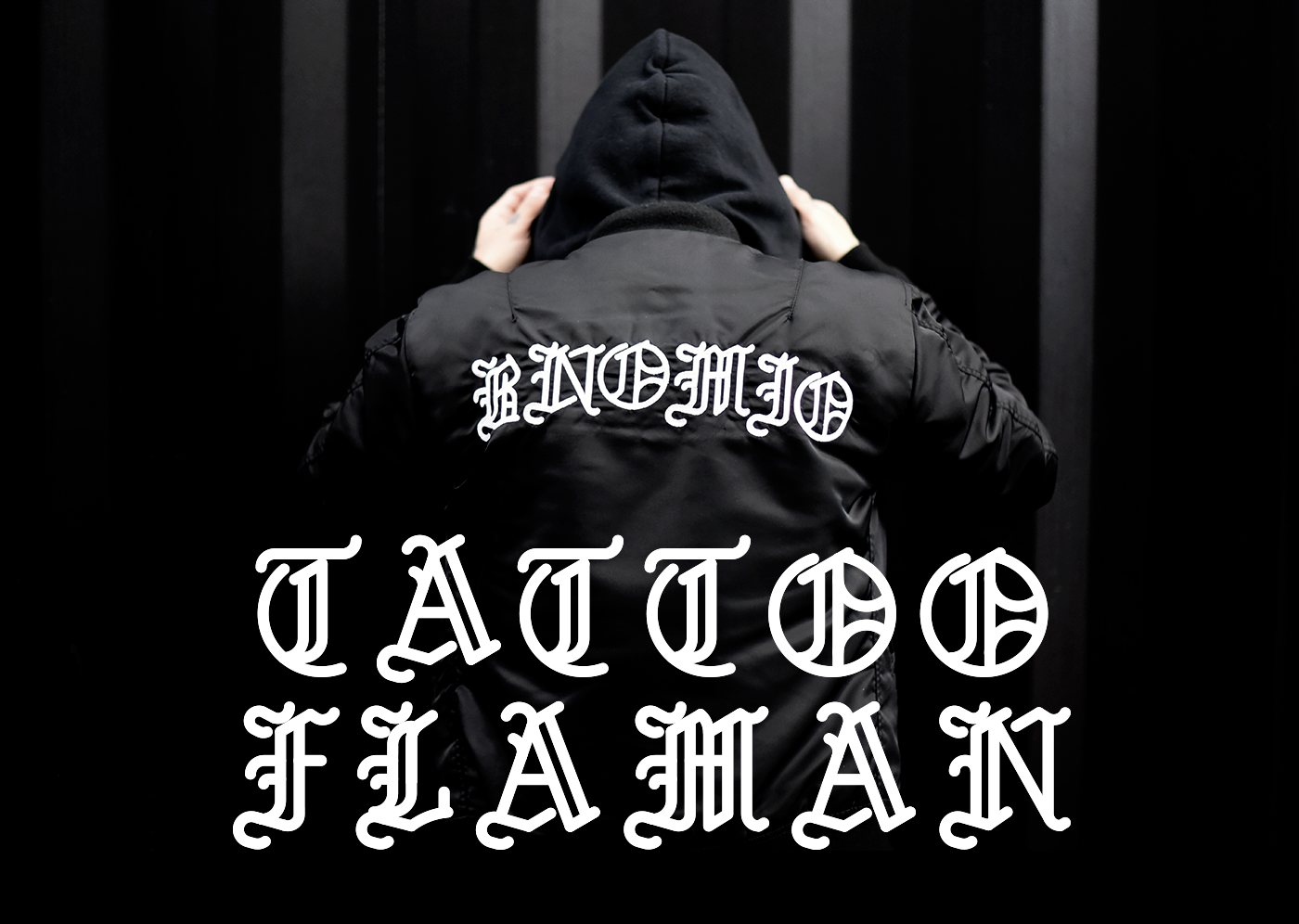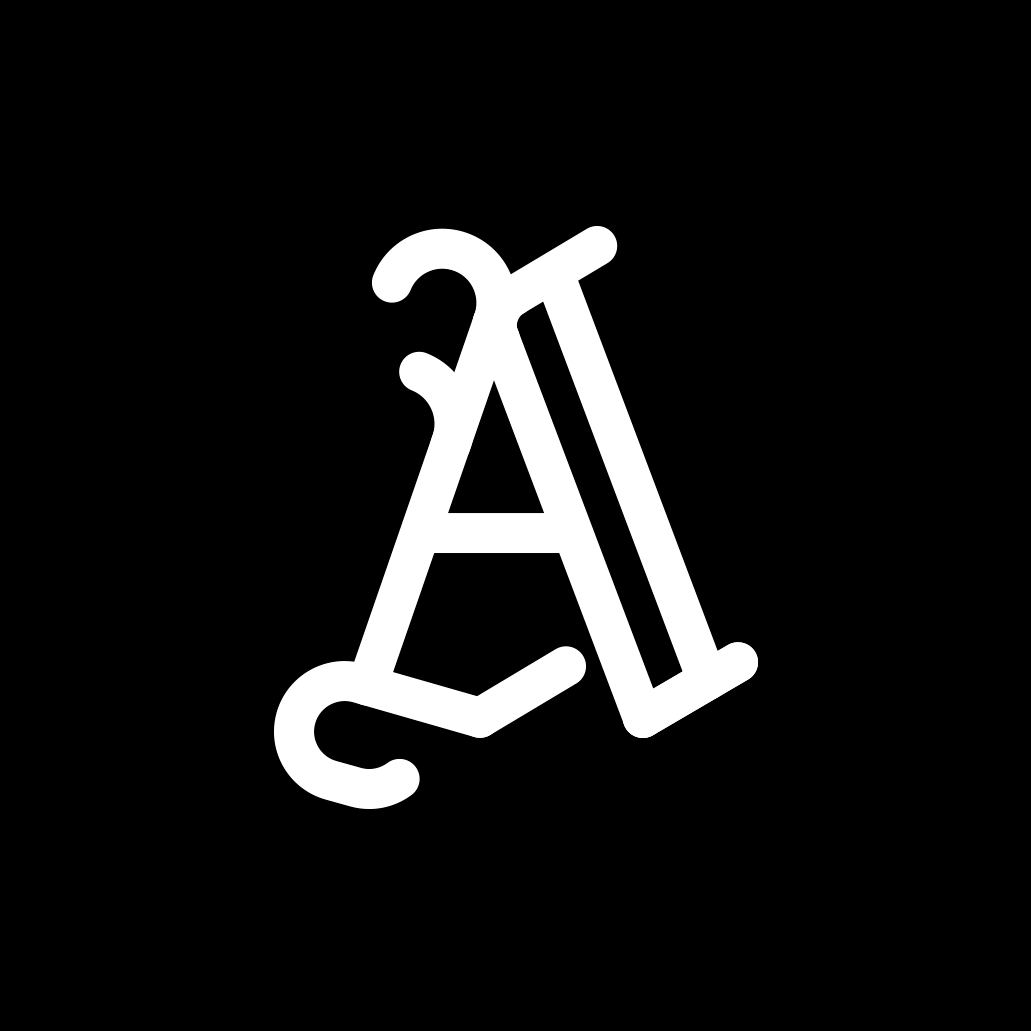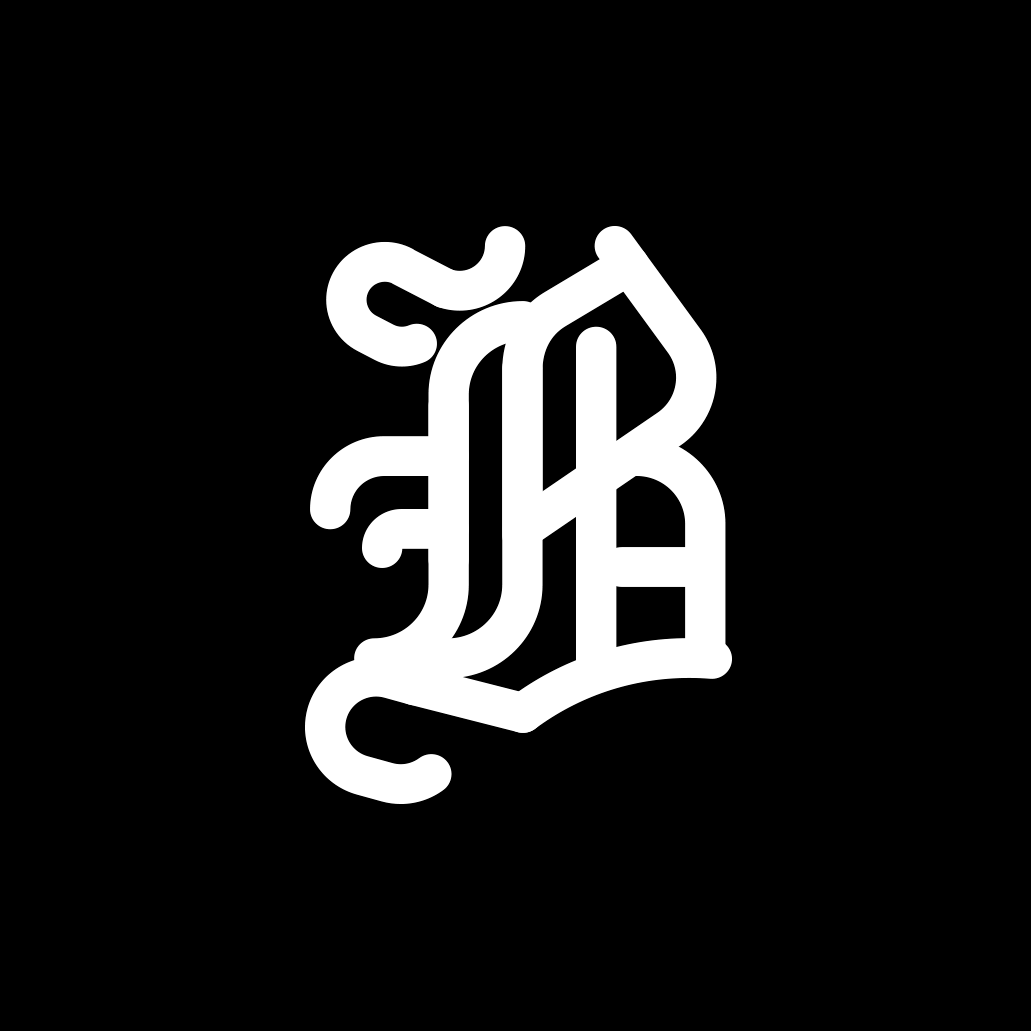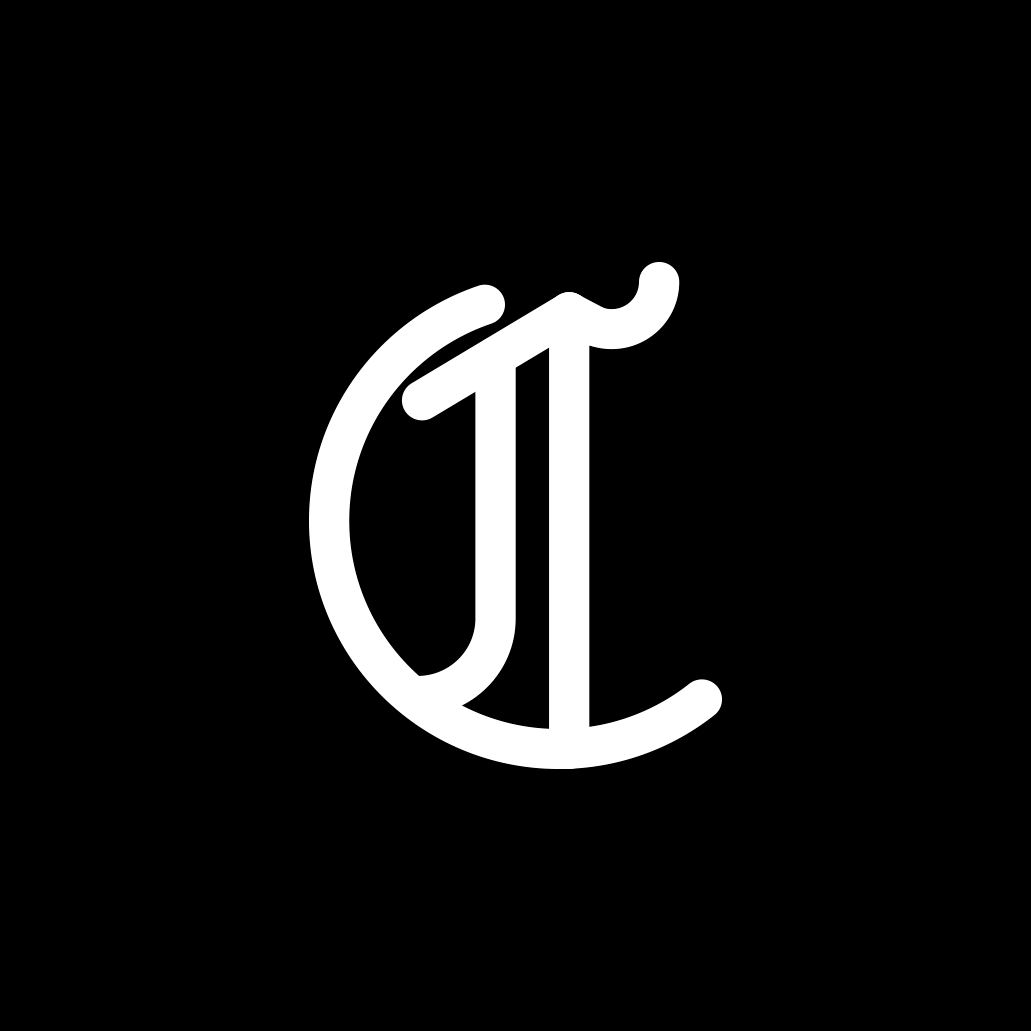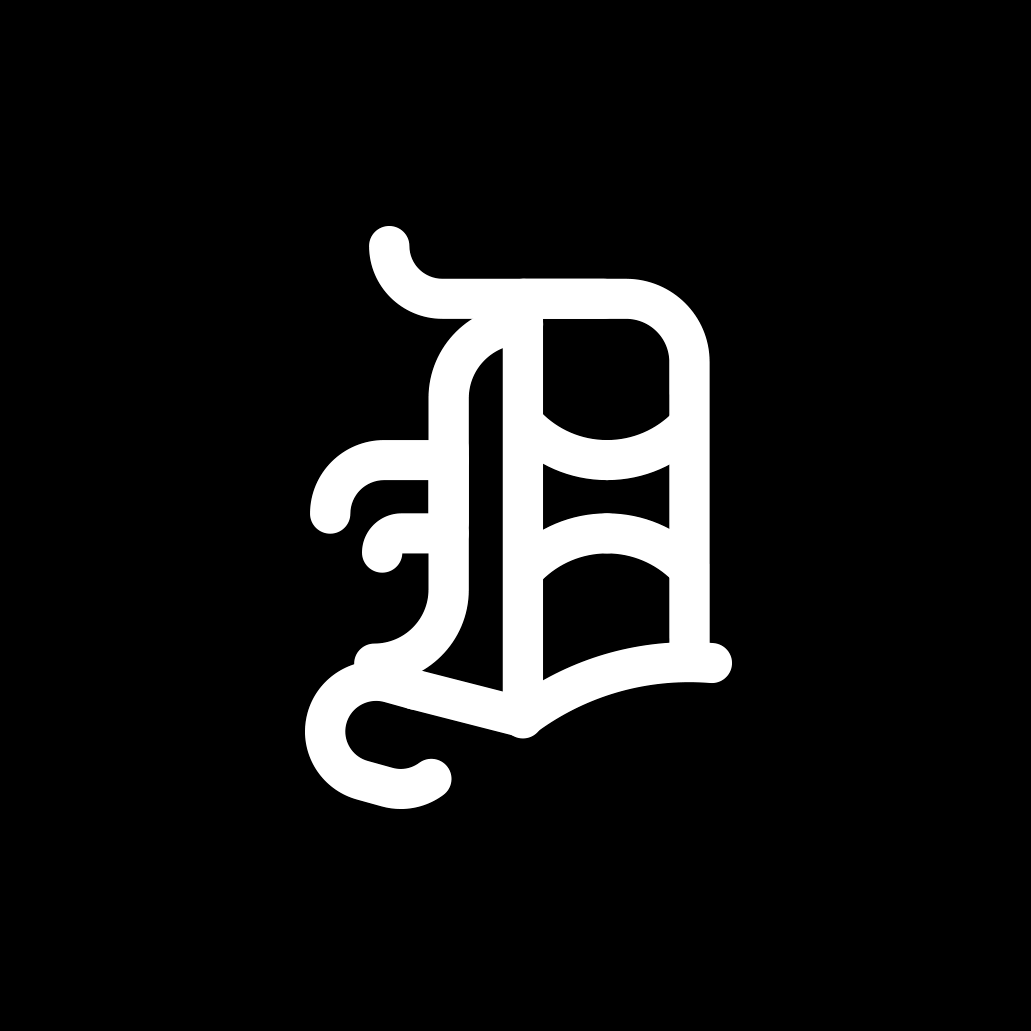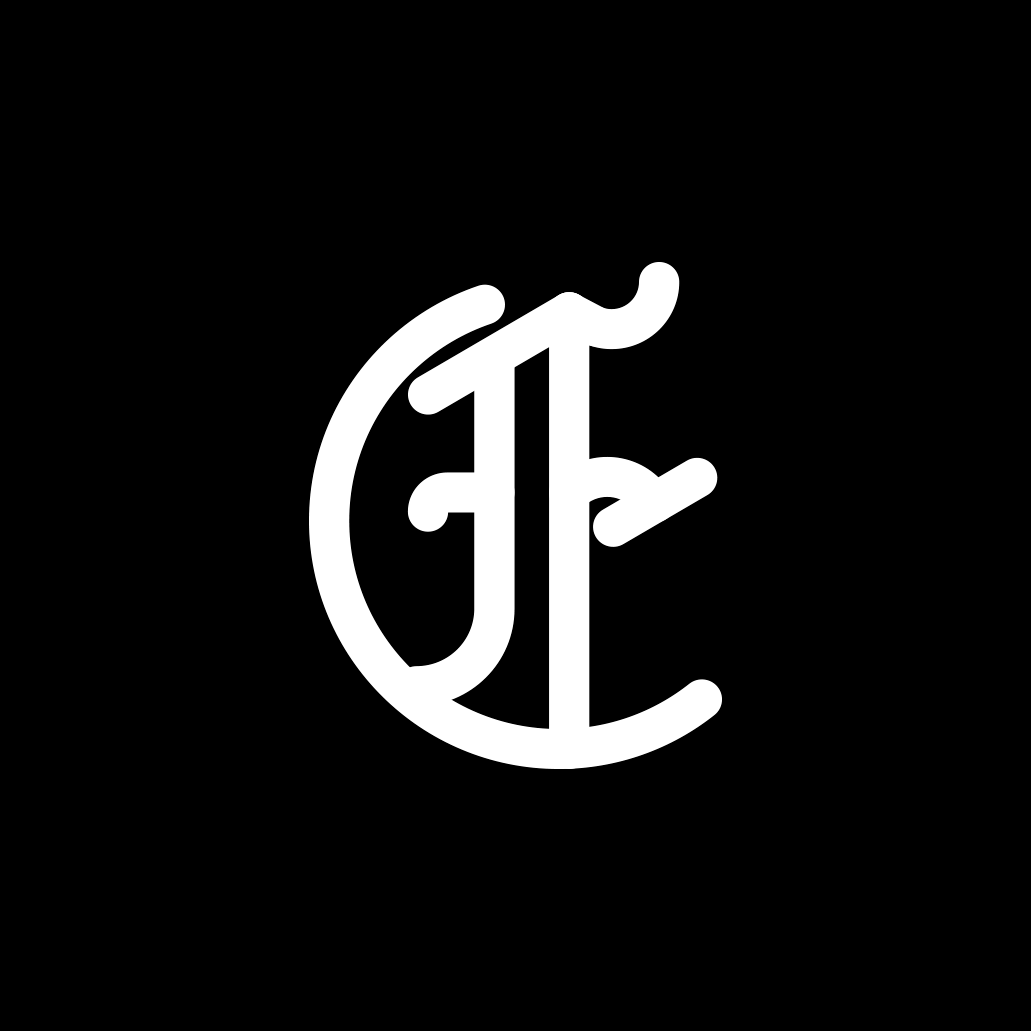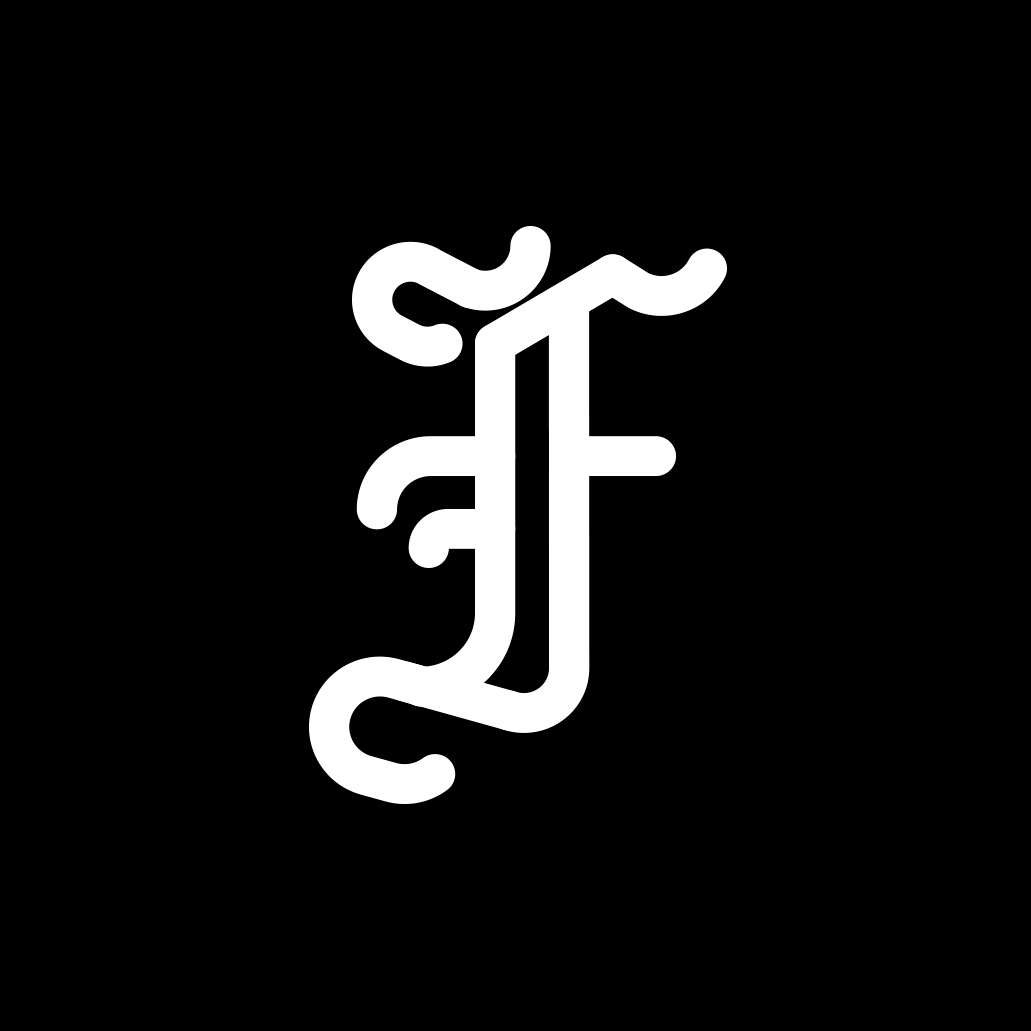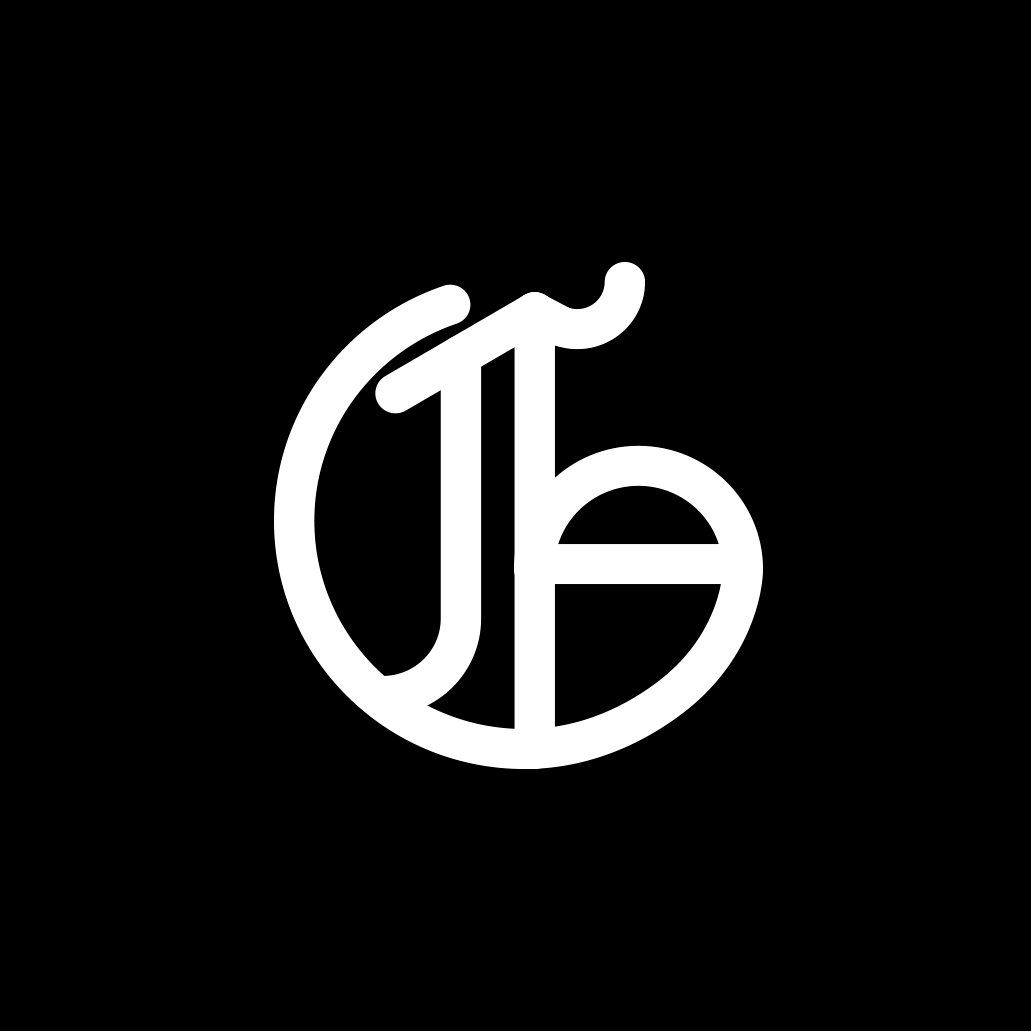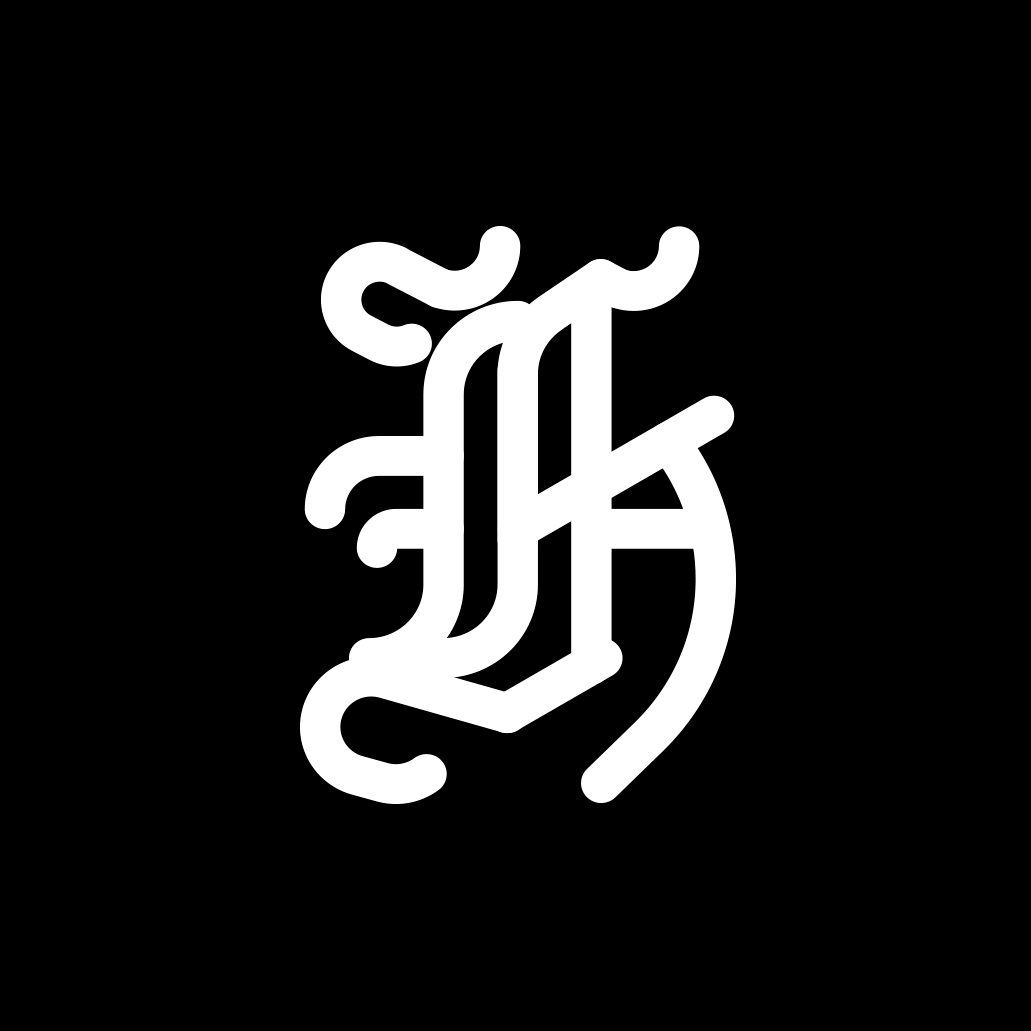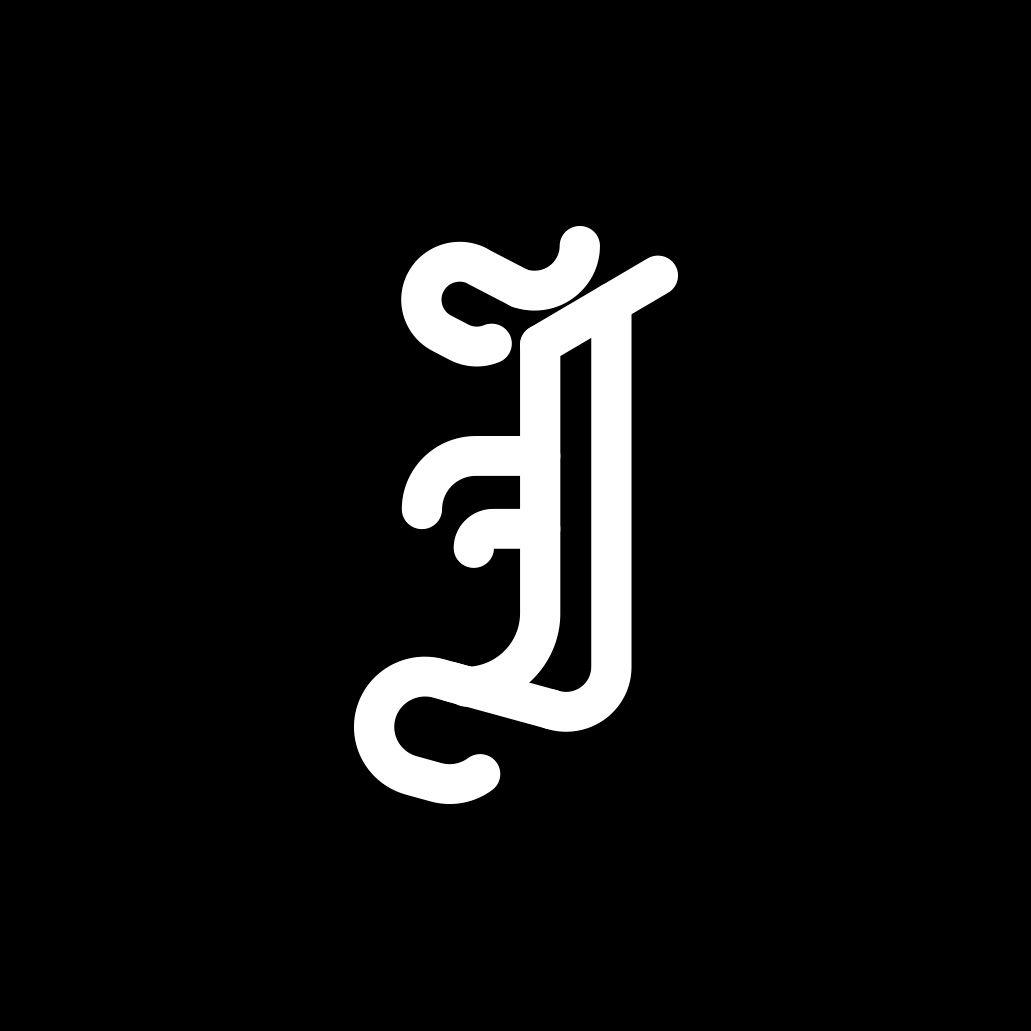
Tattoo Flaman is a typography designed by @bnomio, with which he has participated in the third edition of @36DaysOfType. Tattoo Flaman is inspired by the English Gothic typo family. It uses the same characters, but they got simplified and redrawn using just a thick line. It is a perfect typography for tattoos with a very pronounced stroke. __ Tattoo Flaman es una tipografía diseñada por @bnomio con la que ha participado en la tercera edición de @36DaysOfType. Tattoo Flaman está inspirada en la familia English Gothic. Utiliza los mismos caracteres, pero más simplificados y dibujados tan sólo con un trazo grueso. Es una fuente perfecta para usar en tatuajes de stroke muy marcado. All Images and Materials Copyright Protected - Bnomio ™